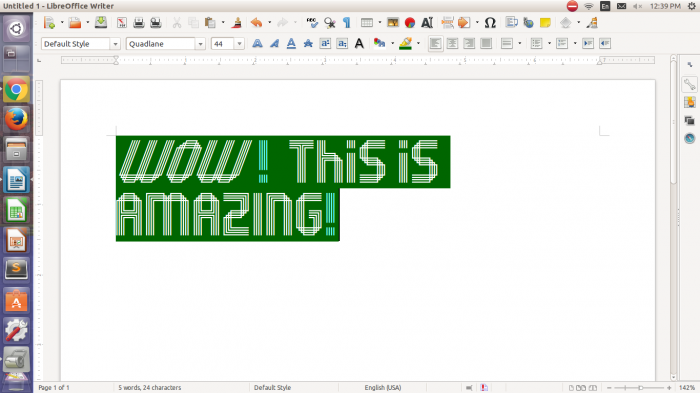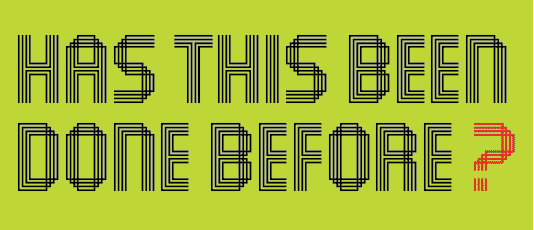
Very clever and very 3-dimensional. 10/10
I don't know if this has been done before, either. But I do know that I like it!
Well done! I like it! I've made some similar but with 3 lines and a little different concept for the Inlinecomp: zreeways.
This is a very interesting font, that, while much different from the norm, is still very much suitable for nigh any aspect of graphic design. Bravo!
Congratulations! FontStruct Staff have deemed your FontStruction worthy of special mention. “Quadlane” is now a Top Pick.
Clever boxes, they deserve the TP. Congratulations :)
Probably, but you really hit the nail on the head. 10/10+fav
I have never seen anything like this before but it is great! Totaly Mindblowing! I can guess that it took FOREVER to make! VERY NICE! ★★★★★ Rated 5 Stars
This works really well! That italic sample is a great idea for another font...